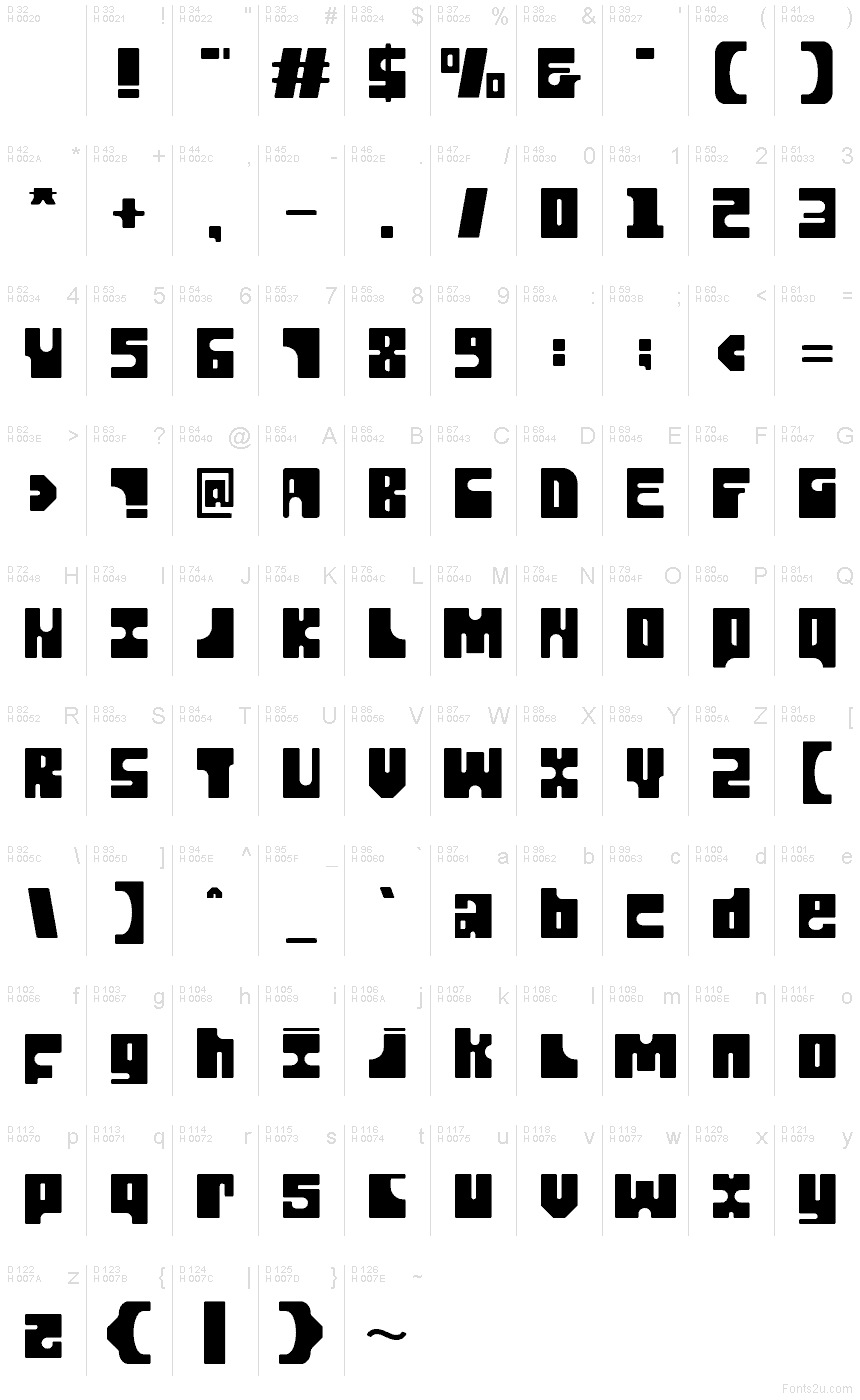
Socilo
Socilo font, created by Jadatype, is a groovy display font with a retro influence. Use of geometric shapes gives it a strong monospaced feel, providing the font with a simplified modern look. It is bold and has an artistic nostalgic touch along with its futuristic vibe.